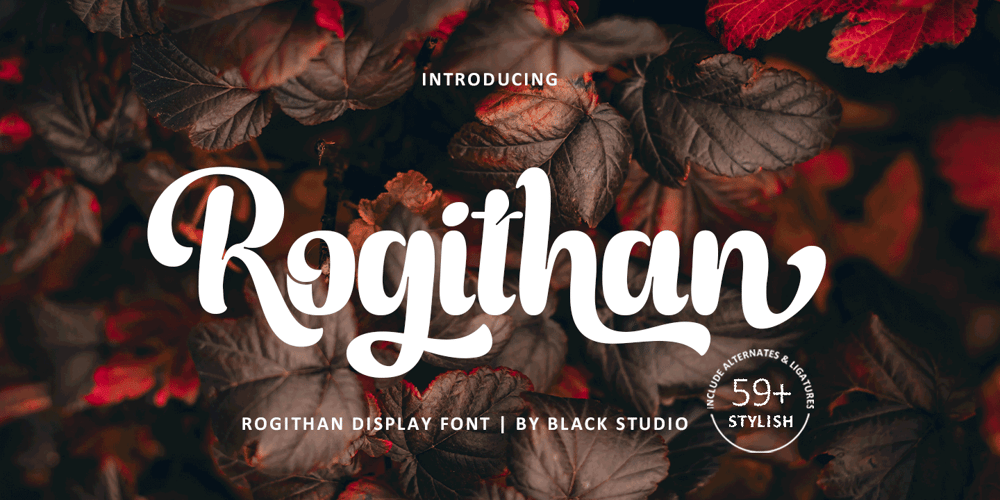
Rogithan Font Family was designed by Reza Haitami and published by Black Studio. Rogithan contains 3 styles and family package options. Introducing, Rogithan is a typeface crafted with elegance and luxury, exuding femininity and glamor but also a side of beauty with plenty of alternatives and ties to help you create endless variations for your creative needs.Its striking contrasts and subtle details, along with luxurious strokes and voluptuous curves, create a beautiful and powerful statement for any typographic composition, blending glamor with contemporary aesthetics.Rogithan really help you create unlimited variations for your creative needs in creating your project titles: such as fashion, magazines, logos, branding, photography, invitations, wedding invitations, quotes, blog headers, posters, advertisements, postcards, books , websites, Logotype, Letterhead, Apparel Design, Label and etc.WHAT IS INCLUDED;• Rogithan – Regular• Rogithan – Italic• Rogithan – SwashThis type of family has become the work of true love, making it as easy and fun as possible.I can’t wait to see what you do with the Rogithan! Feel free to use the #Black Studio tag and the #Rogithan font to show what you’ve been up to, I really hope you enjoy it!Thank you!